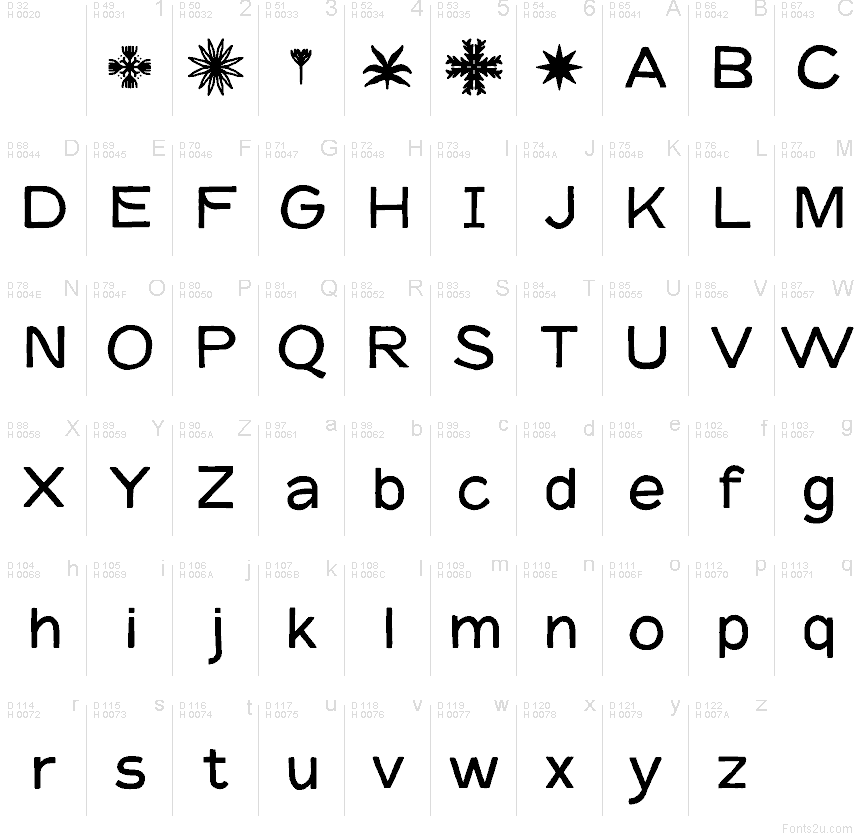
Karteh-Personaluse
Karteh font by Hishand Studio is a free rounded display typeface with a subtly distressed edge that feels both friendly and handmade. Its letters are smooth and open, but the slightly grainy outlines add a tactile, ink-on-paper warmth that you don’t get from cleaner geometric faces. The overall rhythm is relaxed and approachable, giving headlines and wordmarks a human, conversational tone without slipping into childish or overly quirky territory.
Using Karteh, this free font shines on branding for cafes and craft products, social media graphics, event posters, packaging, and homepage hero text where you want charm with legibility. It holds up well at larger sizes, where the textured contours really show, and pairs easily with a simple sans serif for body copy to keep layouts clear and balanced.